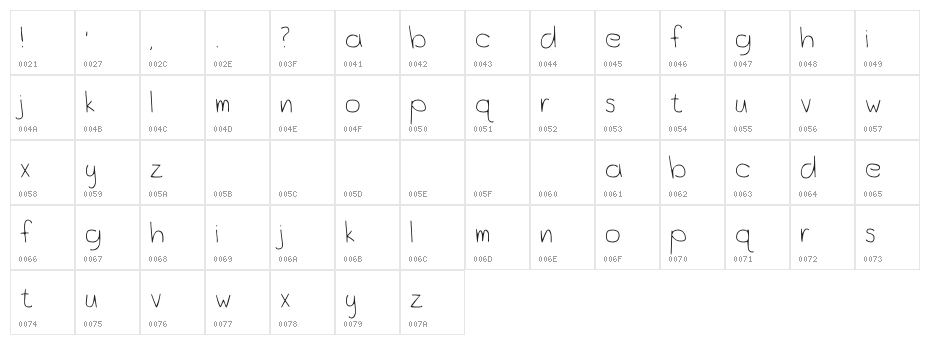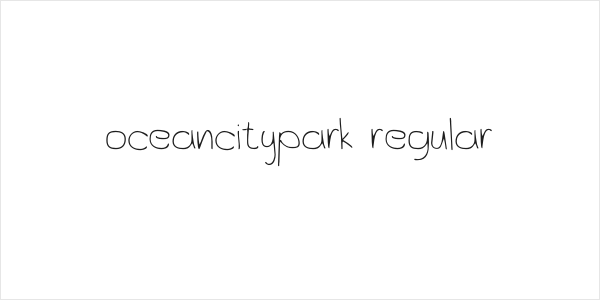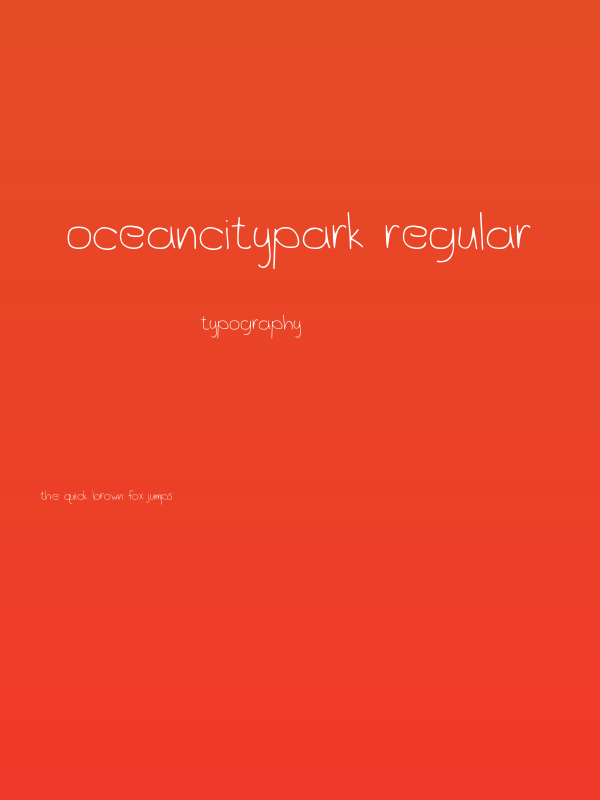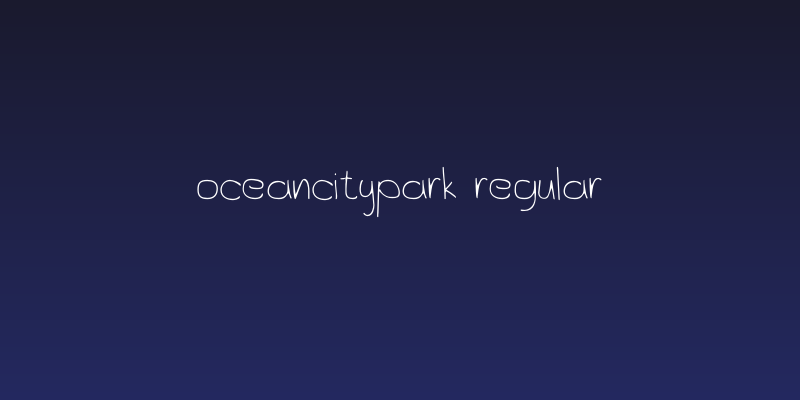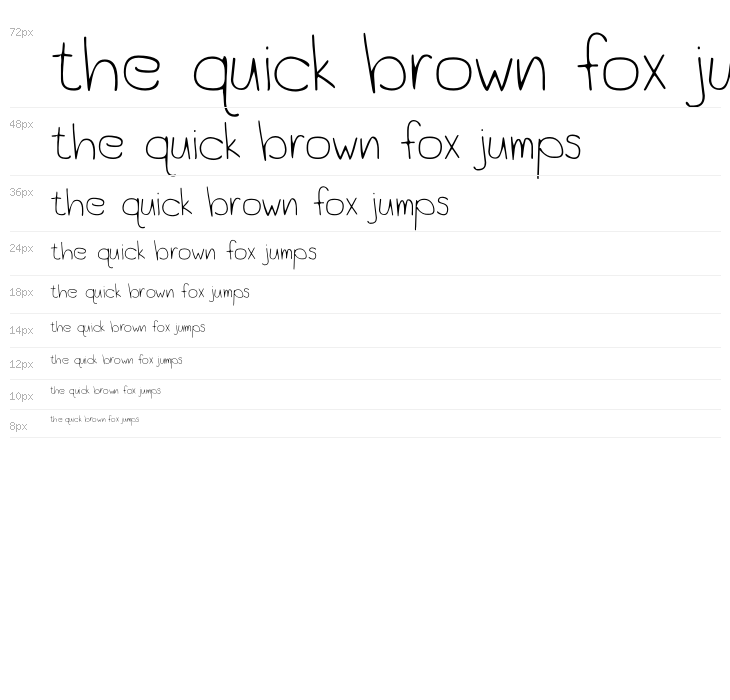
OceanCityPark-Regular Font
OceanCityPark-Regular Description
This font features a playful and casual handwritten style with a smooth, flowing appearance. The characters are slightly elongated with rounded edges, giving it a friendly and approachable feel. The lowercase letters maintain a consistent height, while the ascenders and descenders are moderately extended, adding to its whimsical charm. The spacing between characters is balanced, ensuring readability while maintaining its unique character. This font is ideal for projects that require a personal touch, such as greeting cards, invitations, or children's books. Its simplicity and elegance make it versatile for various design applications.
| Use Case | Greeting cards, Invitations, Children's books |
| Proposed Projects | Ideal for greeting cards, invitations, children's books, and personal branding. |